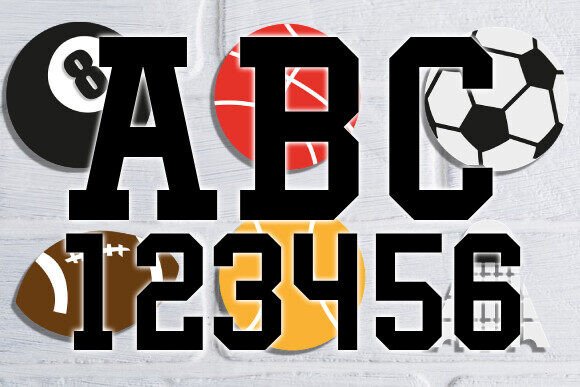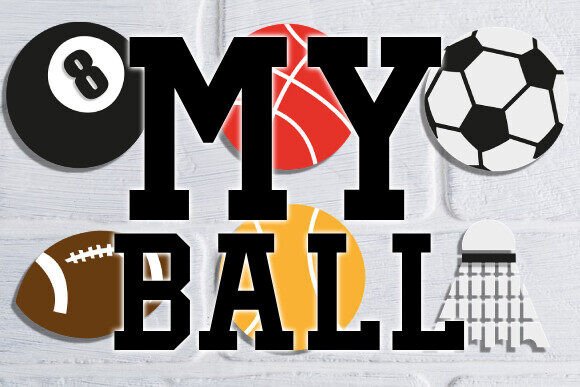
Catch Font: Elevate Your Designs with a Stylish Athletic Twist
Are you on the hunt for a font that can add a dynamic touch to your designs? Look no further than Catch Font, a stylish athletic font that is sure to take your creations to the next level. Whether you’re a designer, crafty DIY enthusiast, or simply someone who loves to dabble in creative projects, Catch Font is an excellent addition to your toolkit.
What is Catch Font?
Catch Font is a modern, athletic font designed to bring a sense of energy and movement to your designs. Its sleek lines, bold appearance, and stylish aesthetic make it perfect for a wide range of applications. From t-shirts and posters to flyers and more, Catch Font can add a professional and eye-catching element to any project.
Key Features of Catch Font
• Stylish and Athletic Design: Catch Font boasts a unique, athletic look that is sure to grab attention. Its stylish design makes it versatile enough for various creative projects.
• High Versatility: The font is highly versatile, making it suitable for both digital and print designs. Whether you’re working on a website, social media graphics, t-shirts, posters, or flyers, Catch Font can be easily integrated.
• Easy to Read: Despite its bold and stylish appearance, Catch Font remains clear and easy to read, ensuring your message is effectively communicated.
• User-Friendly: Catch Font is designed to be user-friendly, making it accessible for designers of all skill levels. Whether you’re a professional or a beginner, you can easily incorporate this font into your projects.
Uses of Catch Font
Catch Font’s versatility means it can be used in a multitude of ways. Here are some popular applications:
• T-Shirts and Apparel: Add a stylish and athletic touch to your t-shirt designs, hoodies, and other apparel.
• Posters and Flyers: Create eye-catching posters and flyers for events, promotions, or informational purposes.
• Digital Graphics: Use Catch Font in social media graphics, blog headers, and website elements to give your digital presence a boost.
• Branding and Logos: Incorporate Catch Font into your branding and logo designs to convey a sense of dynamism and professionalism.
Tips for Using Catch Font
To get the most out of Catch Font, consider the following tips:
• Experiment with Colors: Catch Font looks great in bold colors. Experiment with different color schemes to find the perfect match for your design.
• Combine with Other Fonts: Don’t be afraid to pair Catch Font with other fonts to create a unique and visually appealing design.
• Play with Sizes: Use varying font sizes to create a dynamic and engaging layout.
Catch Font is a stylish athletic font that can elevate your designs with its dynamic and professional look. Its versatility, readability, and user-friendly nature make it an excellent choice for designers and crafters alike. Whether you’re creating t-shirts, posters, flyers, or digital graphics, Catch Font is sure to add a touch of style and sophistication. So why wait? Download Catch Font today and take your designs to new heights!